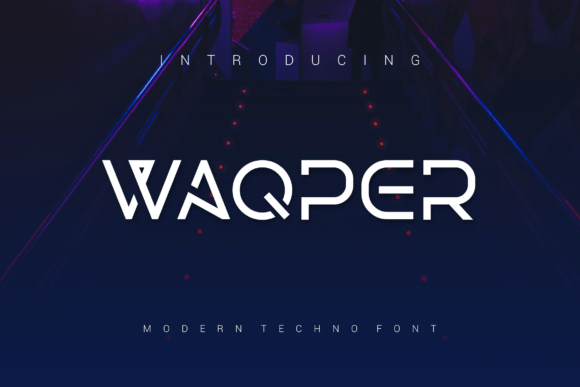
Welcome to the realm of Waqper Font, where boldness and authenticity reign supreme. This captivating sans serif font is not just a collection of characters; it's a gateway to a world of creative possibilities. Designed by the talented kalingga.albert, Waqper Font is crafted to be a standout performer in a universe of ordinary typefaces.
With its robust and confident strokes, Waqper Font commands attention like a fearless warrior on a battlefield. It's a perfect font for those who dare to make a statement, to leave an imprint on the digital landscape. Its thick, unwavering lines convey a sense of strength and determination that will make your words resonate with power.
Whether you're a fearless entrepreneur crafting a compelling logo, a visionary artist designing a captivating poster, or an audacious fashion designer creating a t-shirt that speaks volumes, Waqper Font is your trusted ally. Its versatility knows no bounds, adapting effortlessly to a myriad of branding projects, from e-sports logos to social media posts that demand attention.
In a world saturated with monotony, Waqper Font emerges as a beacon of originality, a font that refuses to blend in. Its distinct character shines through in every letter, every word, every design it adorns, ensuring that your message cuts through the noise and captivates your audience.
So, if you seek a font that embodies boldness, authenticity, and unwavering determination, look no further than Waqper Font. Let your creativity soar as you explore the boundless possibilities it offers. Embrace the power of Waqper Font and leave an unforgettable mark on the world of design.